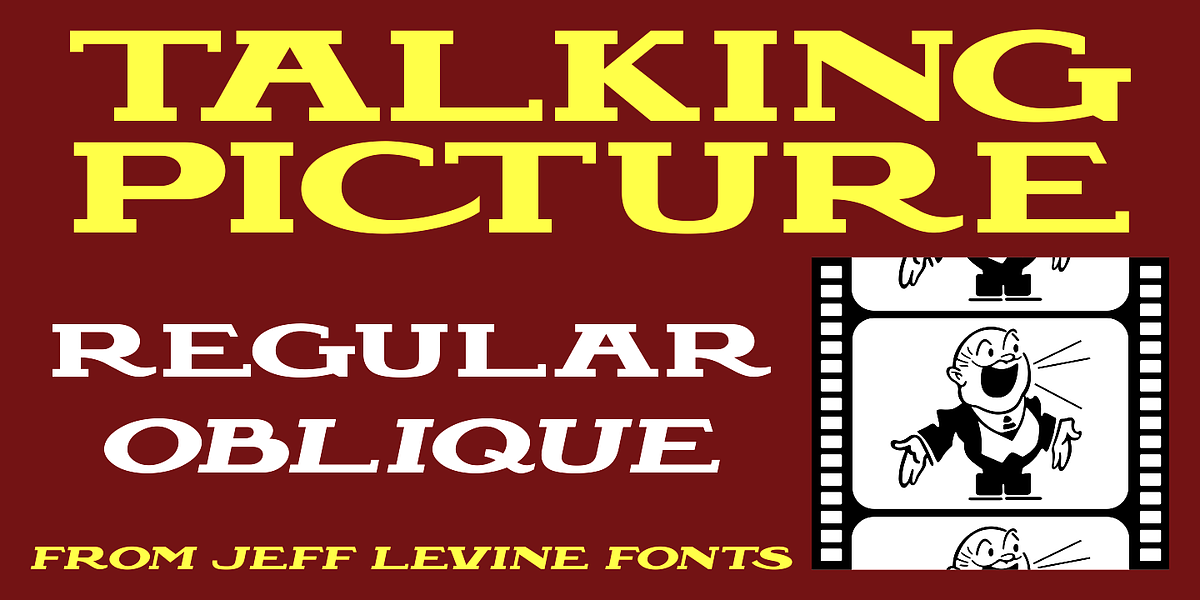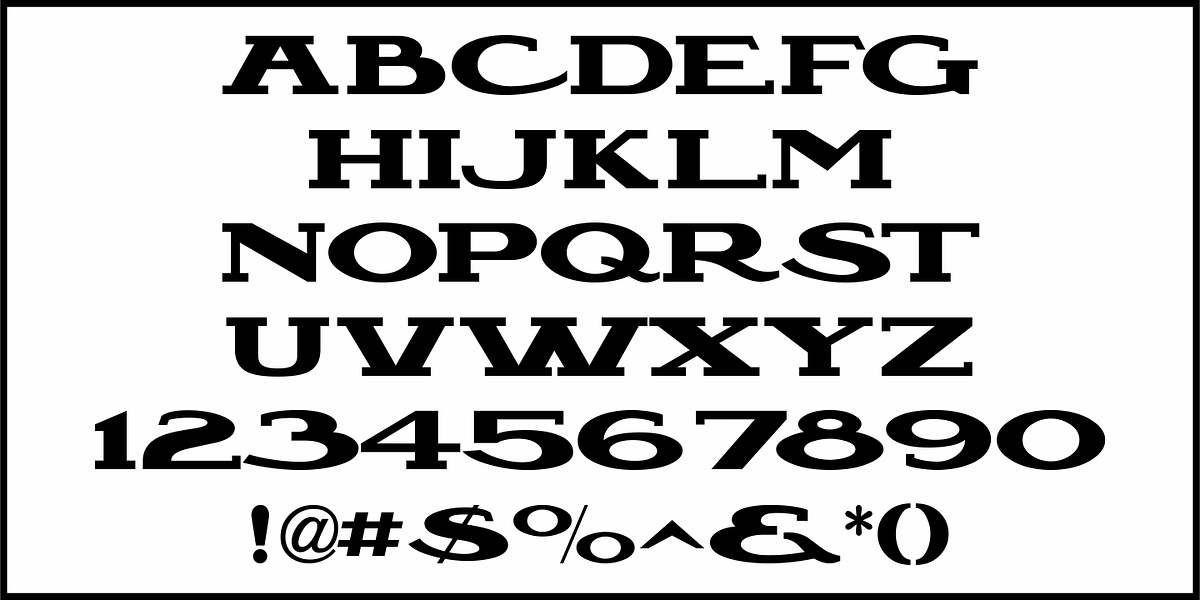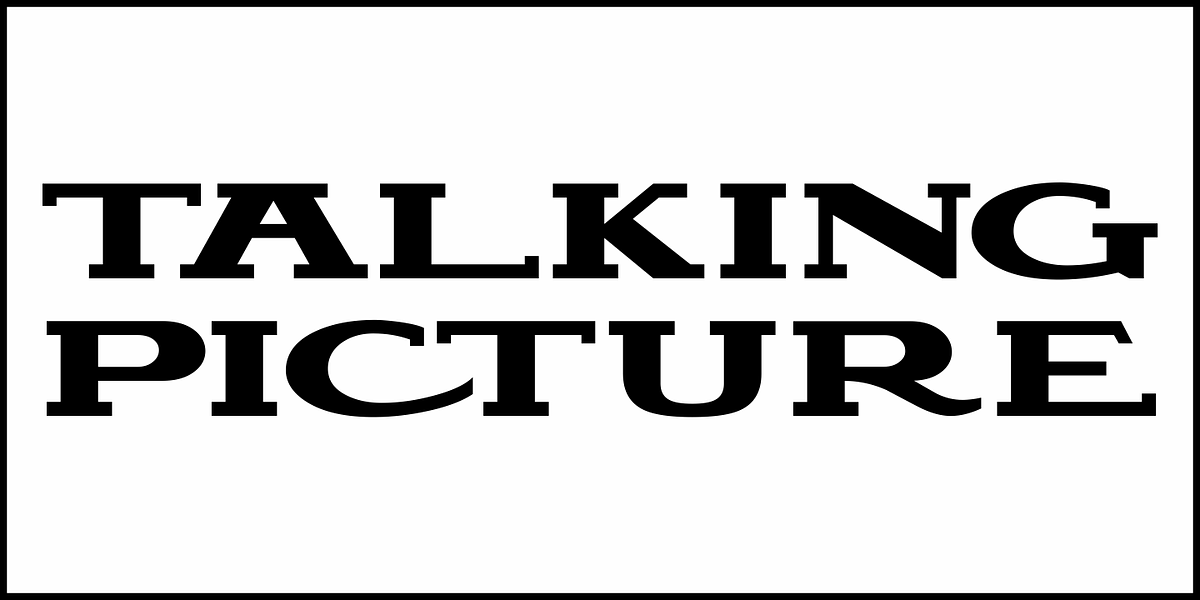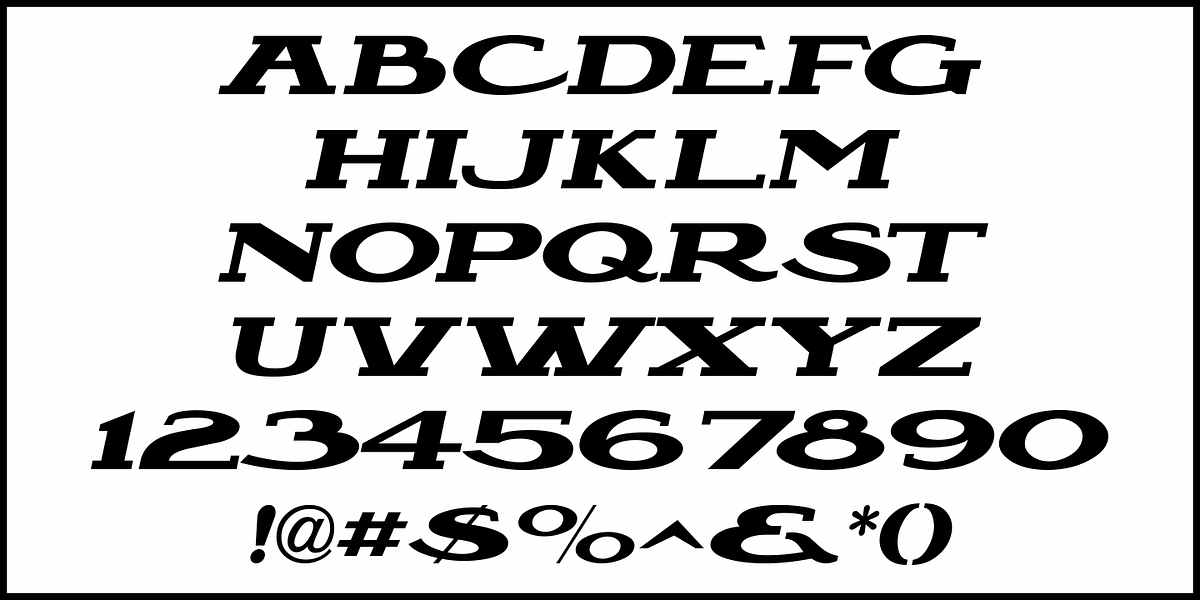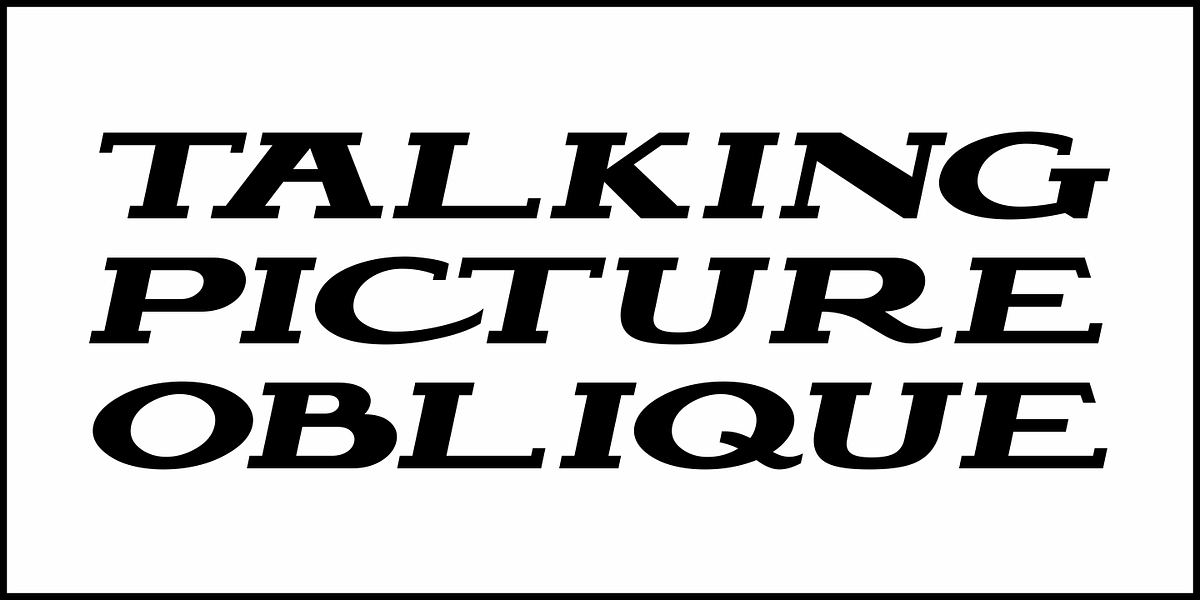
Talking Picture JNL
In a vintage photograph, promotional signage outside an old theater for the 1929 early sound film “The Doctor’s Secret” had lettering in a wide, bold Art Nouveau slab serif design.
This was the model for Talking Picture JNL, which is available in both regular and oblique versions.